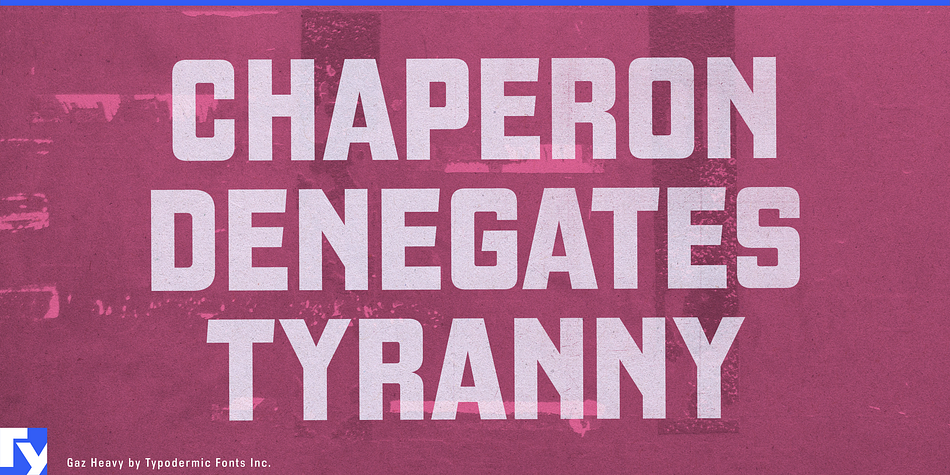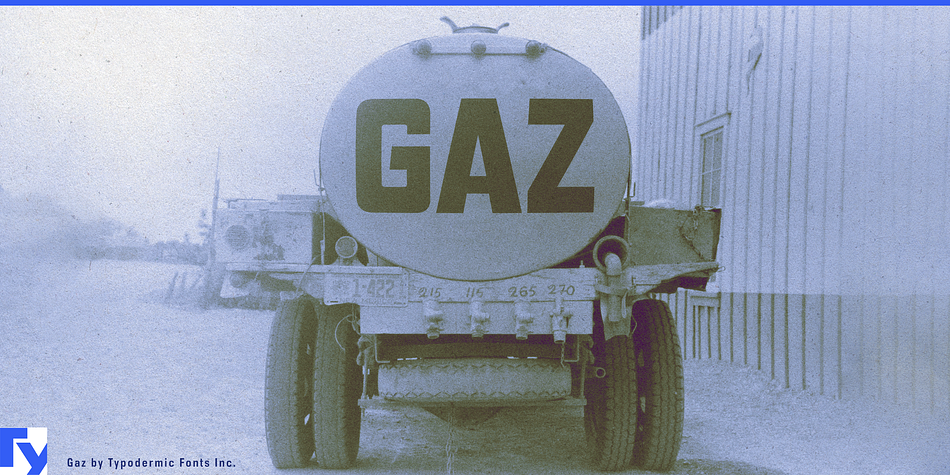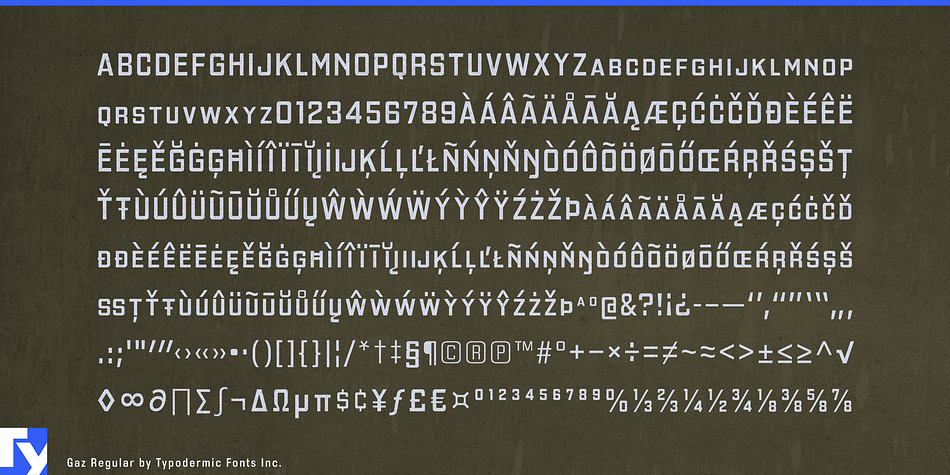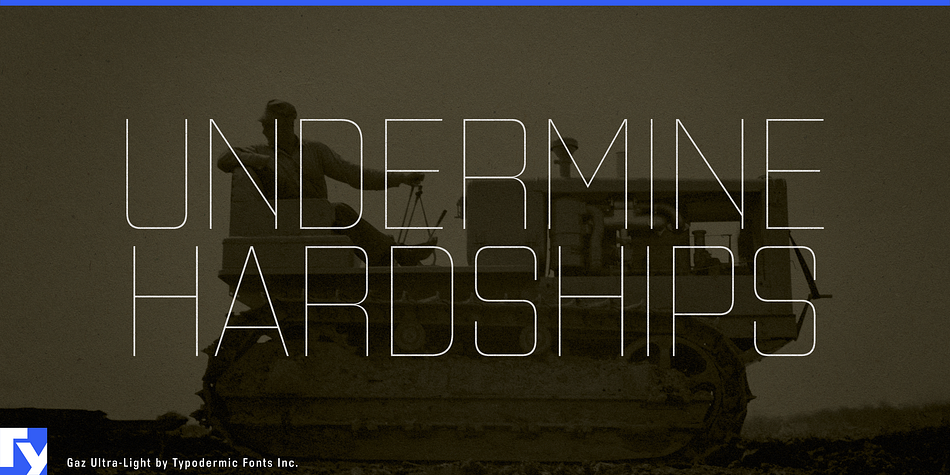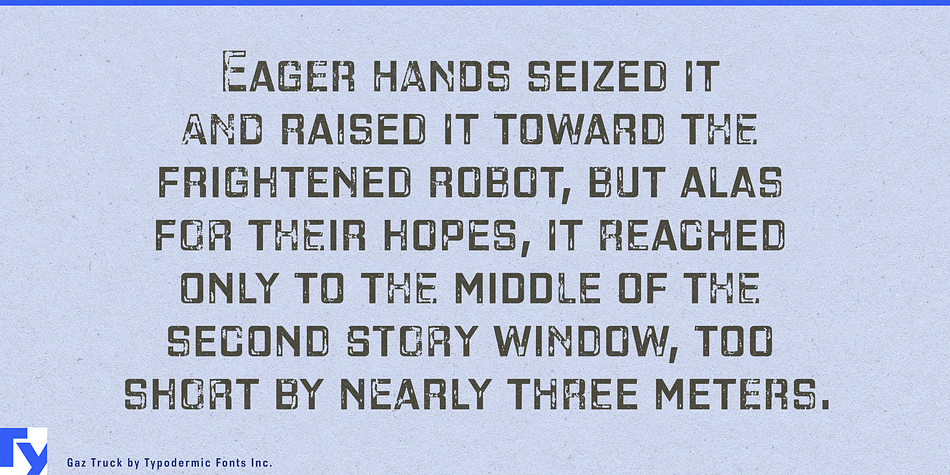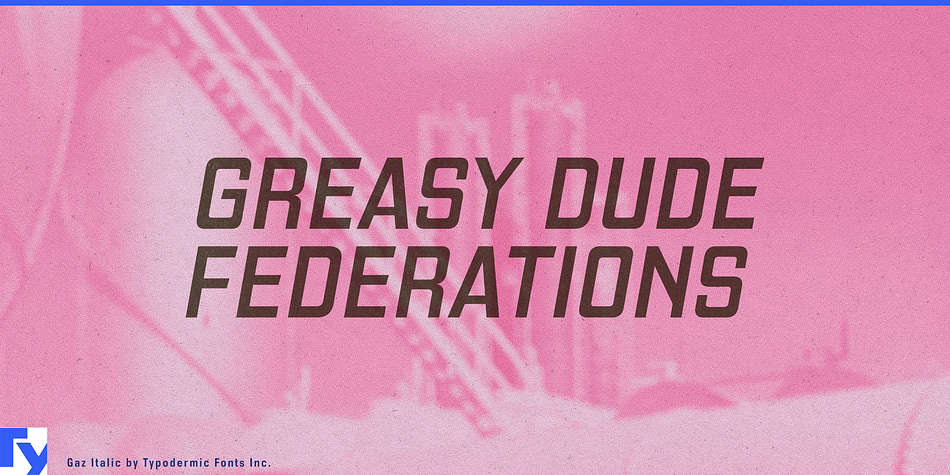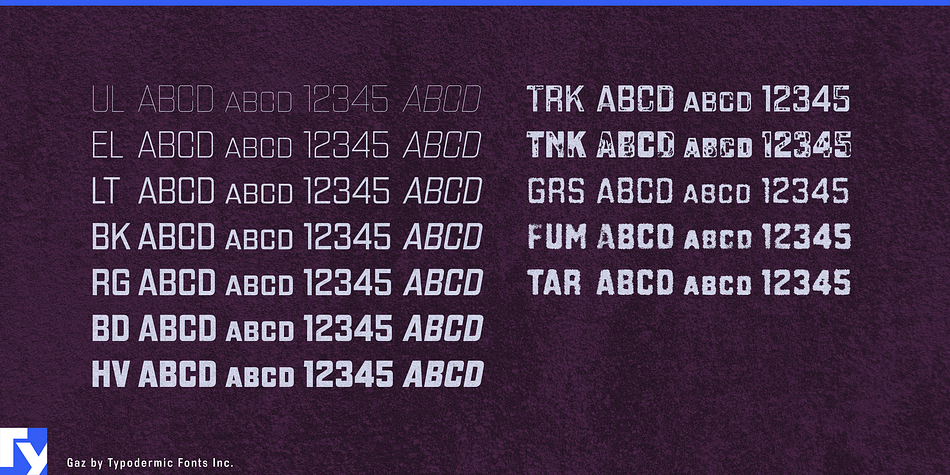
Gaz is a grunge, novelty and display sans font family. This typeface has nineteen styles and was published by Typodermic Fonts Inc.
Gaz is a square, display typeface, influenced by twentieth-century gasoline station signs. Sign painters used to call this type of lettering stove pipe, due to the right angles and rounded corners. Despite its squareness, Gaz has a friendly, almost organic ambiance. Gaz is available in 7 weights and italics as well as 5 greasy effect styles. These run-down Gaz fonts contain ligatures which are automatically substituted in most applications, to project a more natural tone.